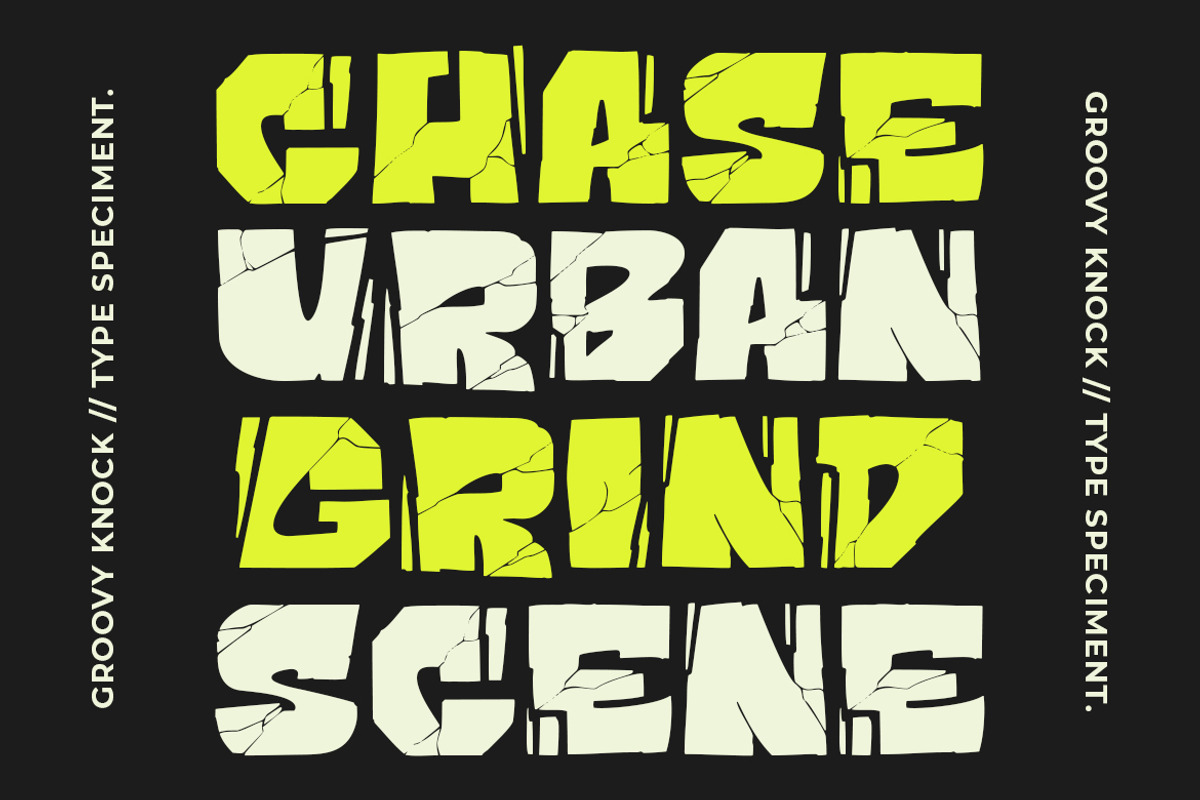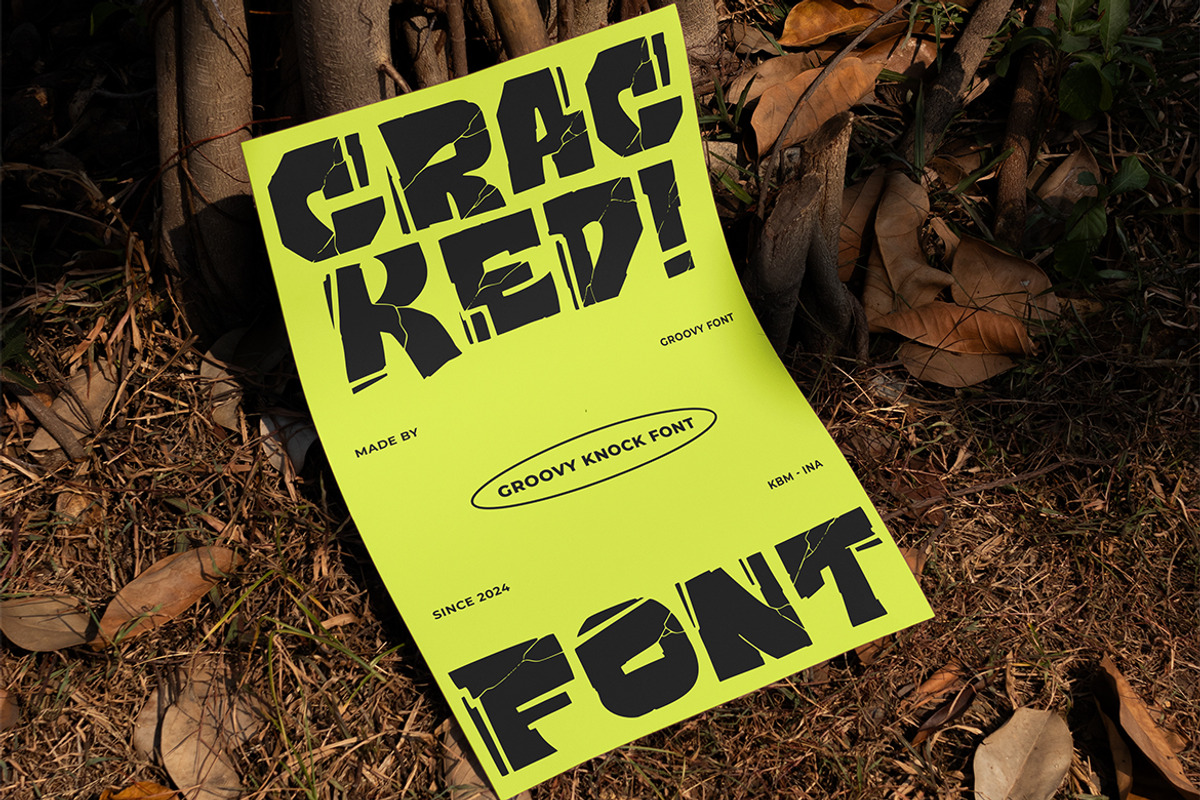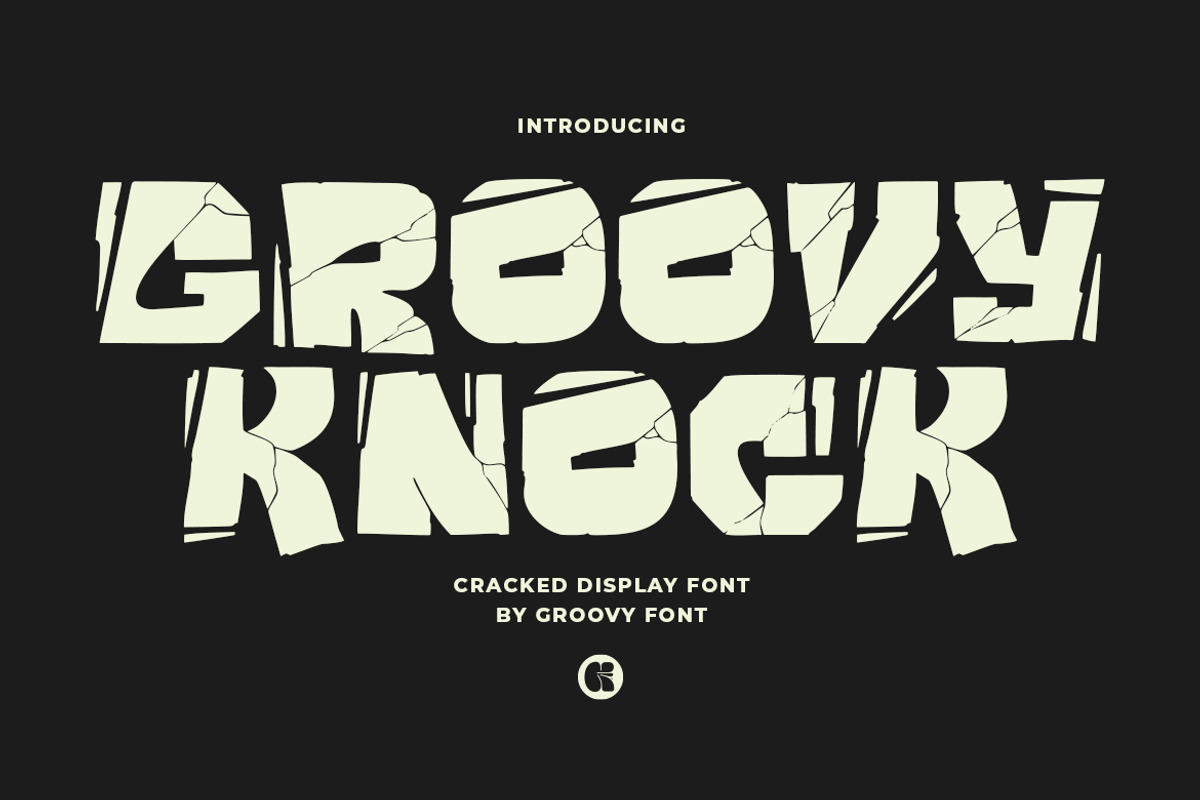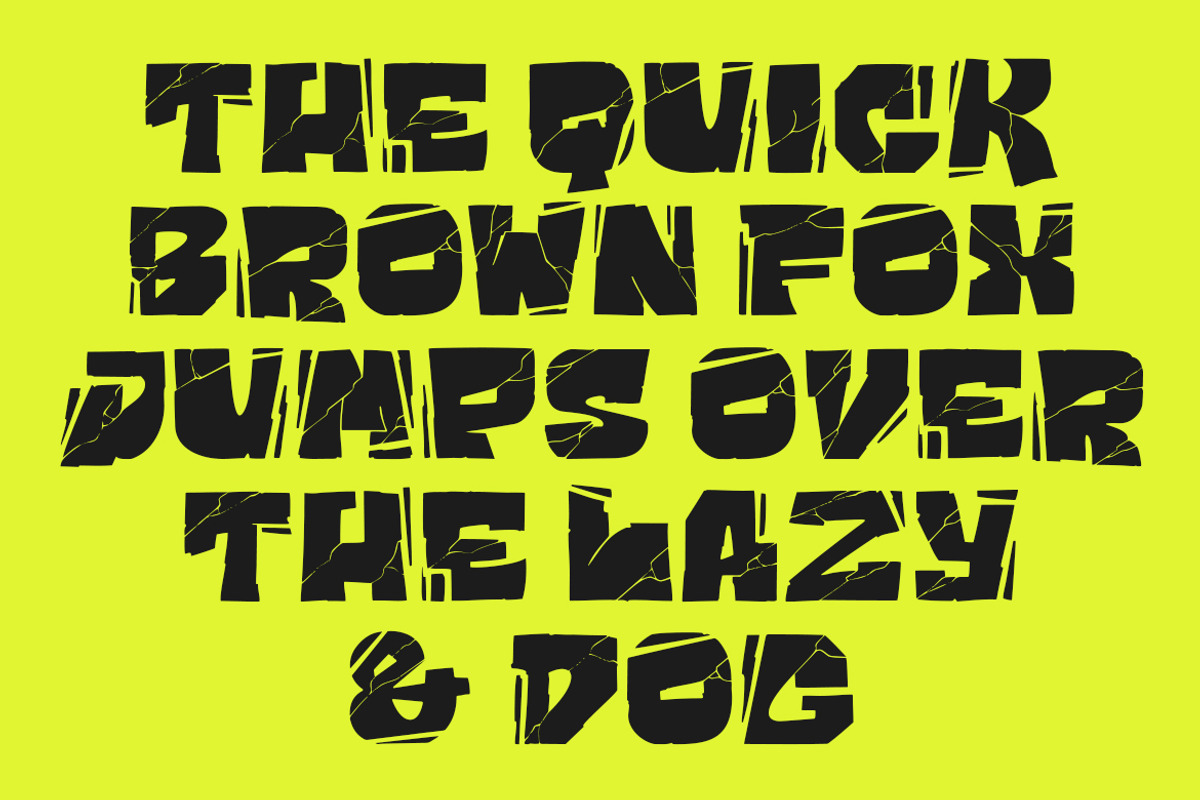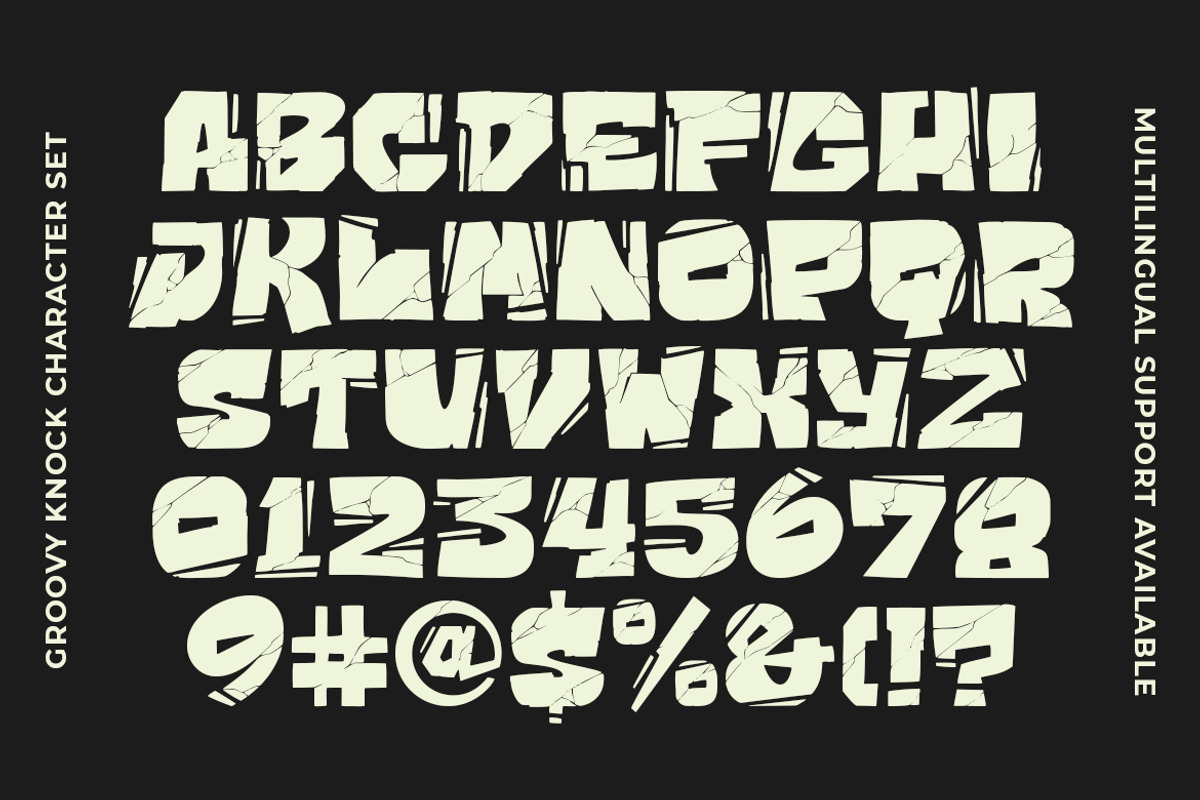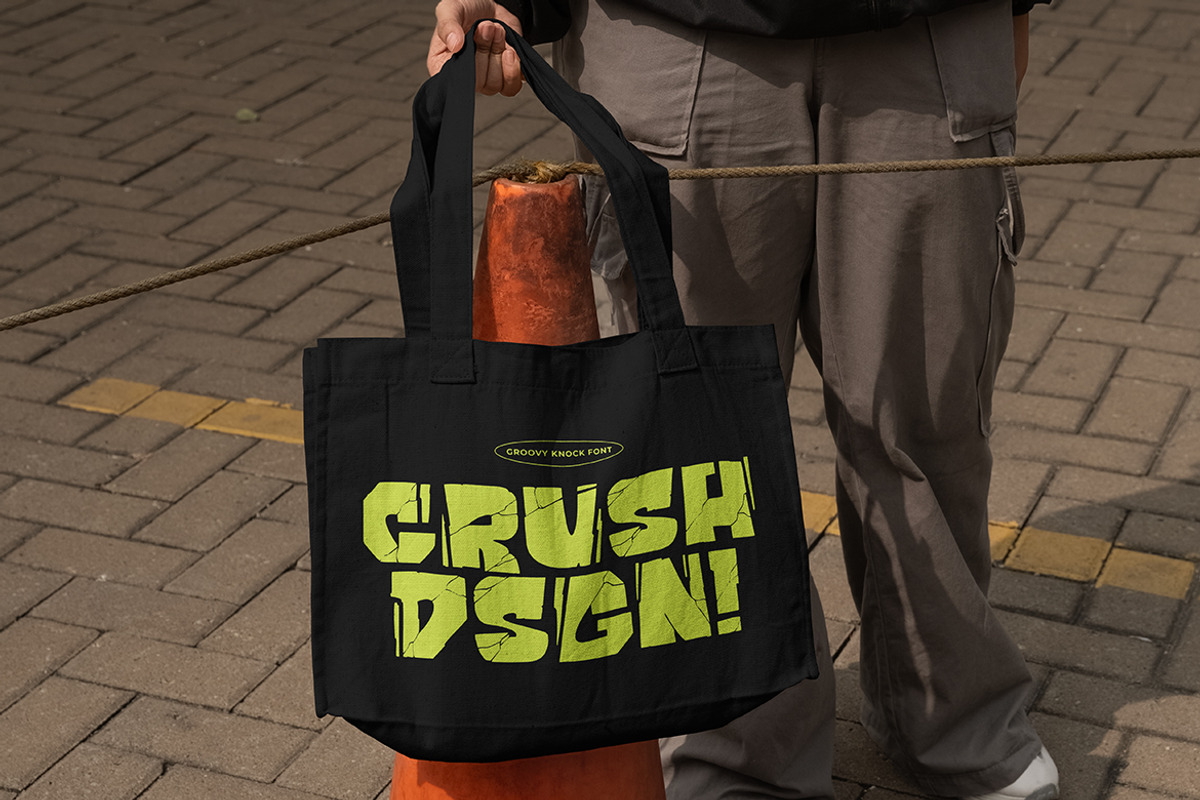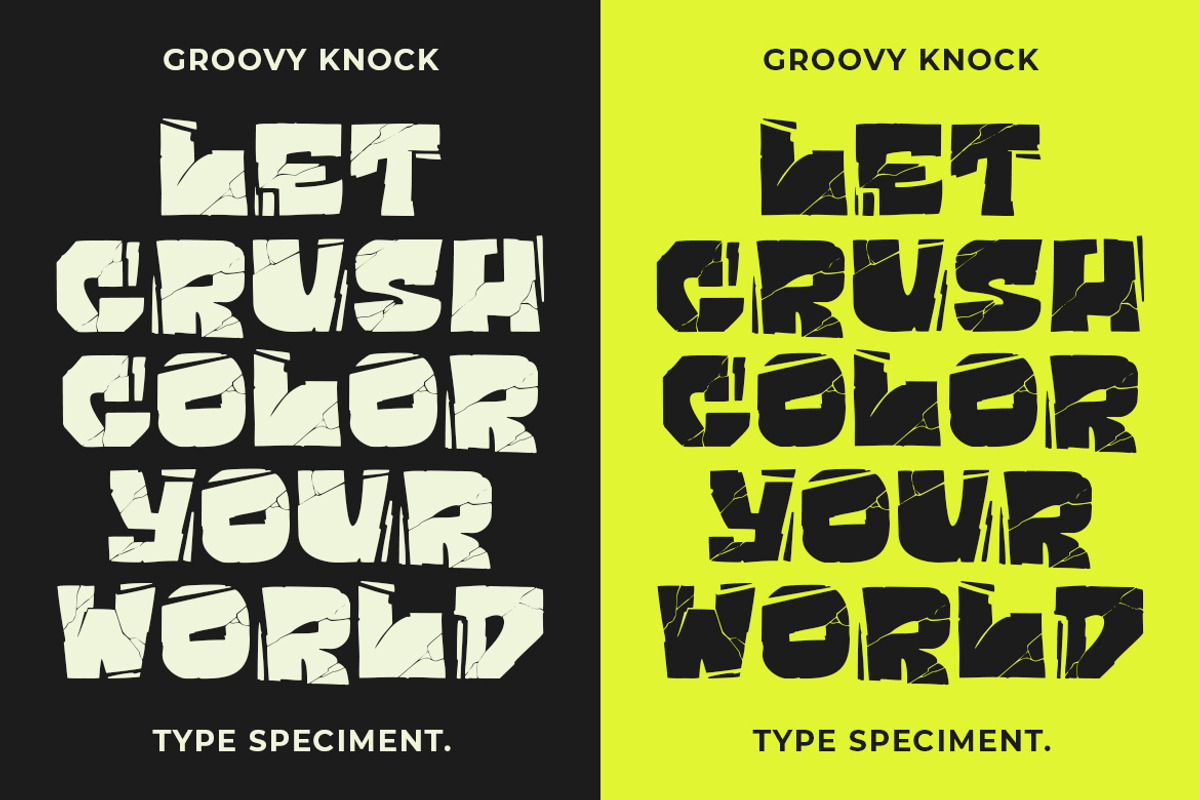
GF Knock - Cracked Display Font
Groovy Knock is a unique display font that exudes a sense of edginess and resilience. Inspired by a wall that has been cracked by impact, this font features jagged edges and a distressed appearance that gives it a truly distinctive look.
With its bold and eye-catching characteristics, Groovy Knock is perfect for projects that require a touch of urban style and a rebellious attitude. Let this font make a powerful statement in your designs with its cracked display and groovy charm.